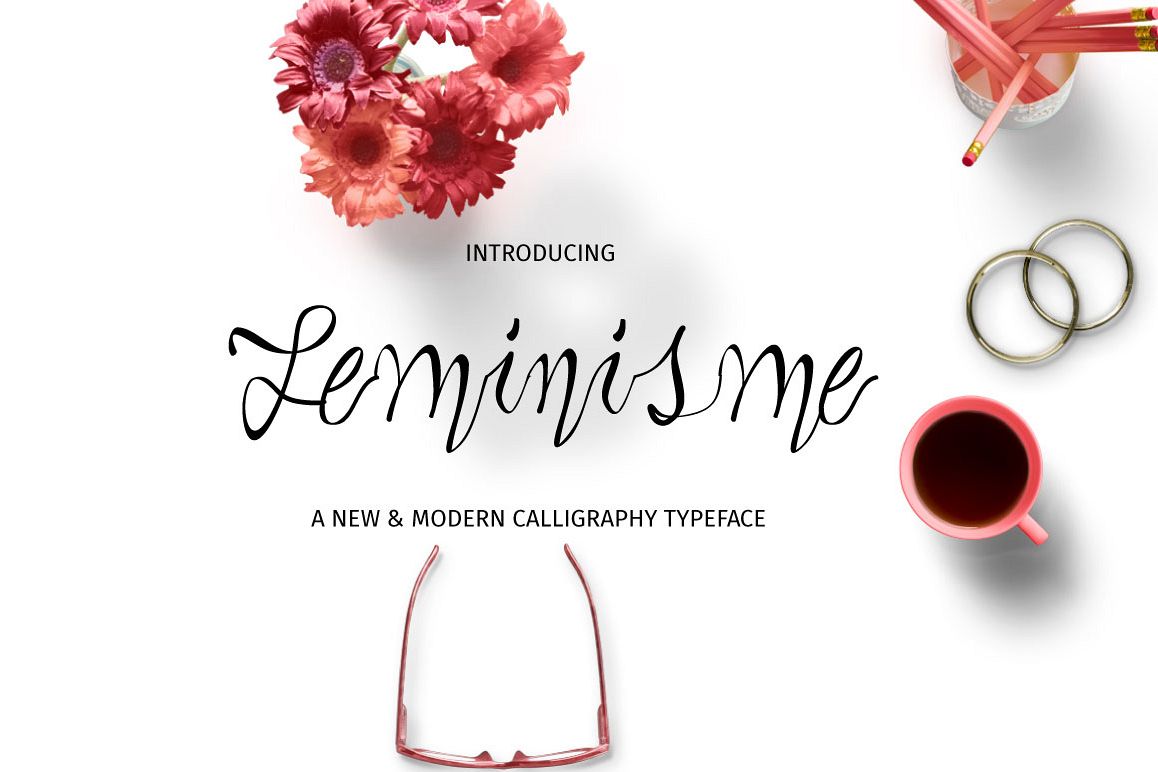
Feminisme Typeface
Feminisme.
Introducing a new modern script made carefully based to modern calligraphy style with a ton of glyps with opentype feutures such as standard ligature, discretionery ligature, stylistic alternates, stylistic sets (including initial & terminal swashs).
Can be used for various purposes; headings, signature, logos, wedding invitation, t-shirt, signage, lable, posters, badges etc.